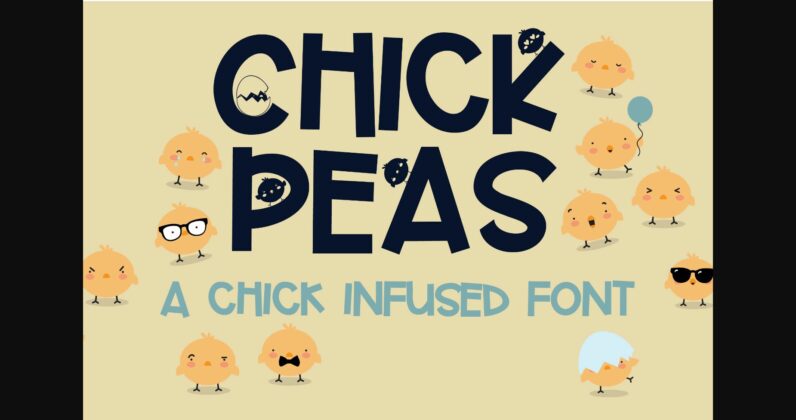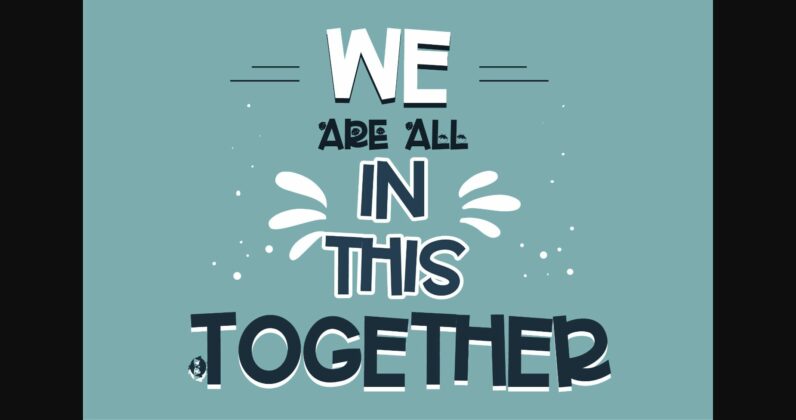
About Chick Peas Font
Chick Peas is a dynamic and distinctive option that’s perfect for designs that need a youthful touch. Its bold lines and unique letter shapes give it an energetic and modern feel, while its clean design makes it easy to read. The letters work together seamlessly, creating a cohesive and eye-catching look.